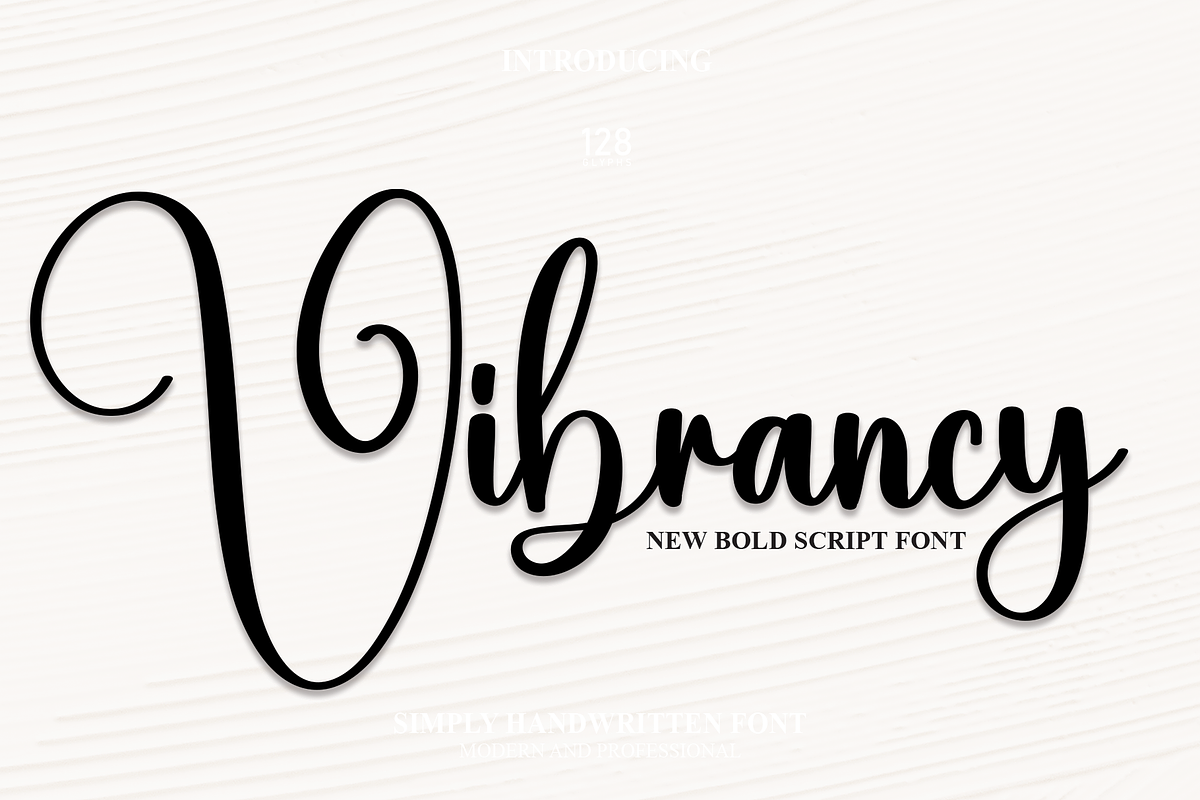
Vibrancy Script Font Free Download is a lively and energetic handwritten script typeface that captures a sense of motion and joy. With its smooth, flowing lines and elegant curves, Vibrancy is perfect for branding, wedding invitations, greeting cards, social media posts, and any design that needs a touch of dynamic elegance.
Its unique and expressive character makes it ideal for projects that require a modern yet personal style. Whether you're creating an artistic logo, a personalized design, or a heartfelt message, Vibrancy adds warmth and movement to your typography.